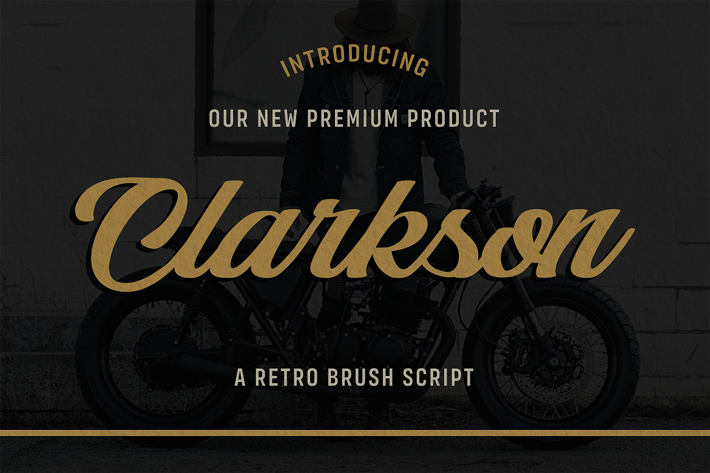
Retro Brush Script Font
Whether you’re promoting your business, designing merchandise, or creating a new social media campaign, good presentation is crucial. The font you choose plays a key role – it completely shapes your audience’s reaction.
Introducing Clarkson– A Retro Brush Script Font.
Perfectly balanced between power and refinement, this handcrafted font delivers your message with style. The modern take on the retro design makes it ideal for branding, business cards, presentations, logos, clothing, packaging, banners, ads, and much, much more.
Multilingual & Ligature Support
Full sets of Punctuation and Numerals